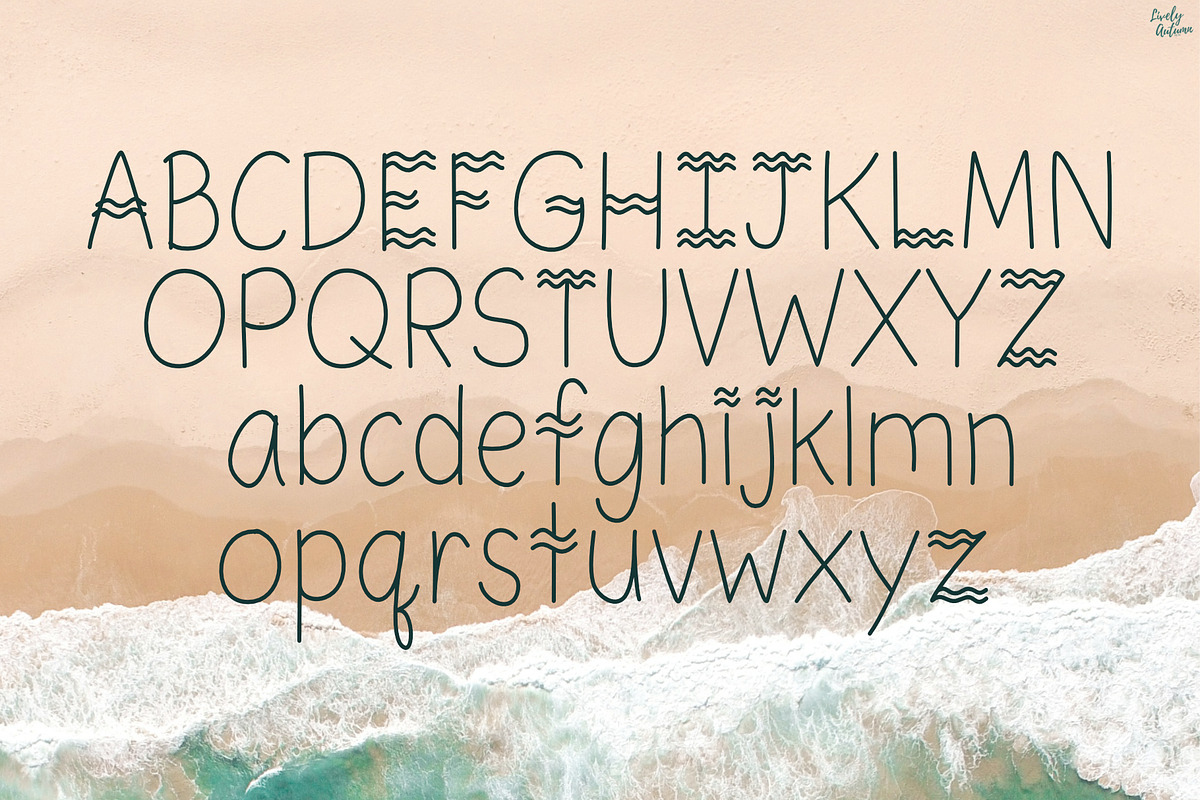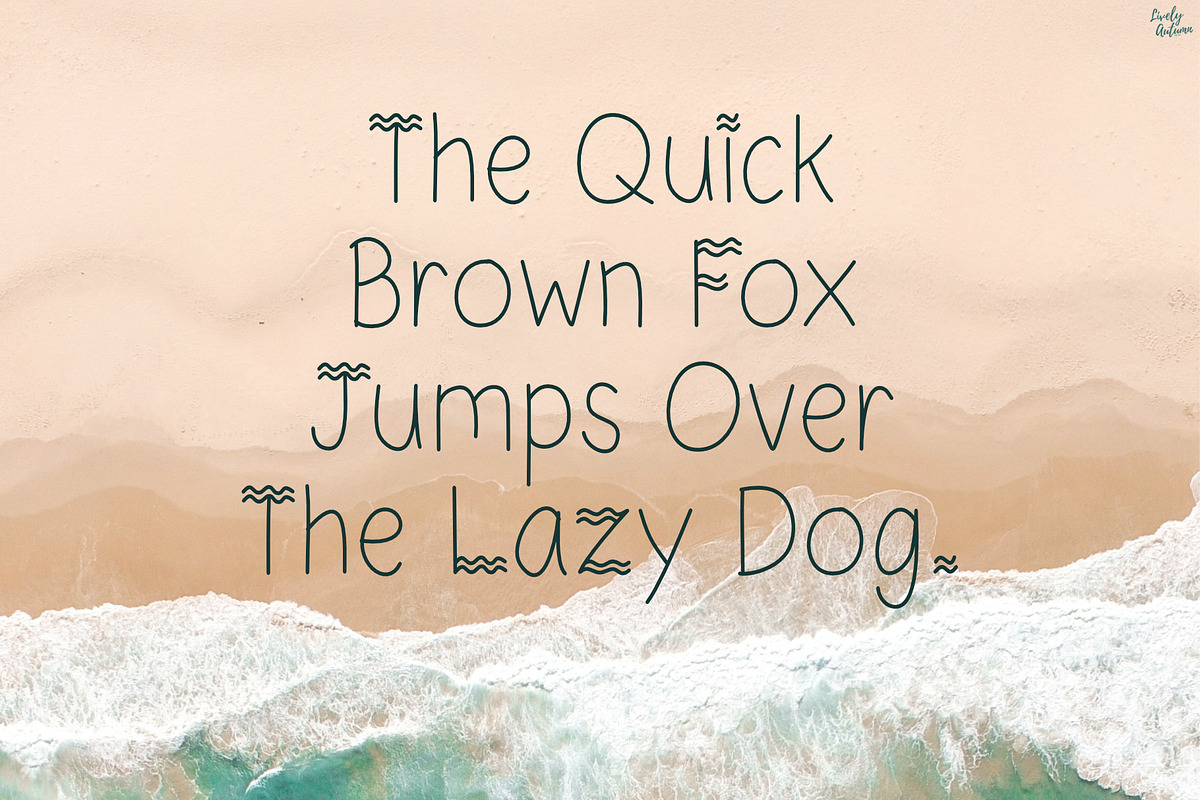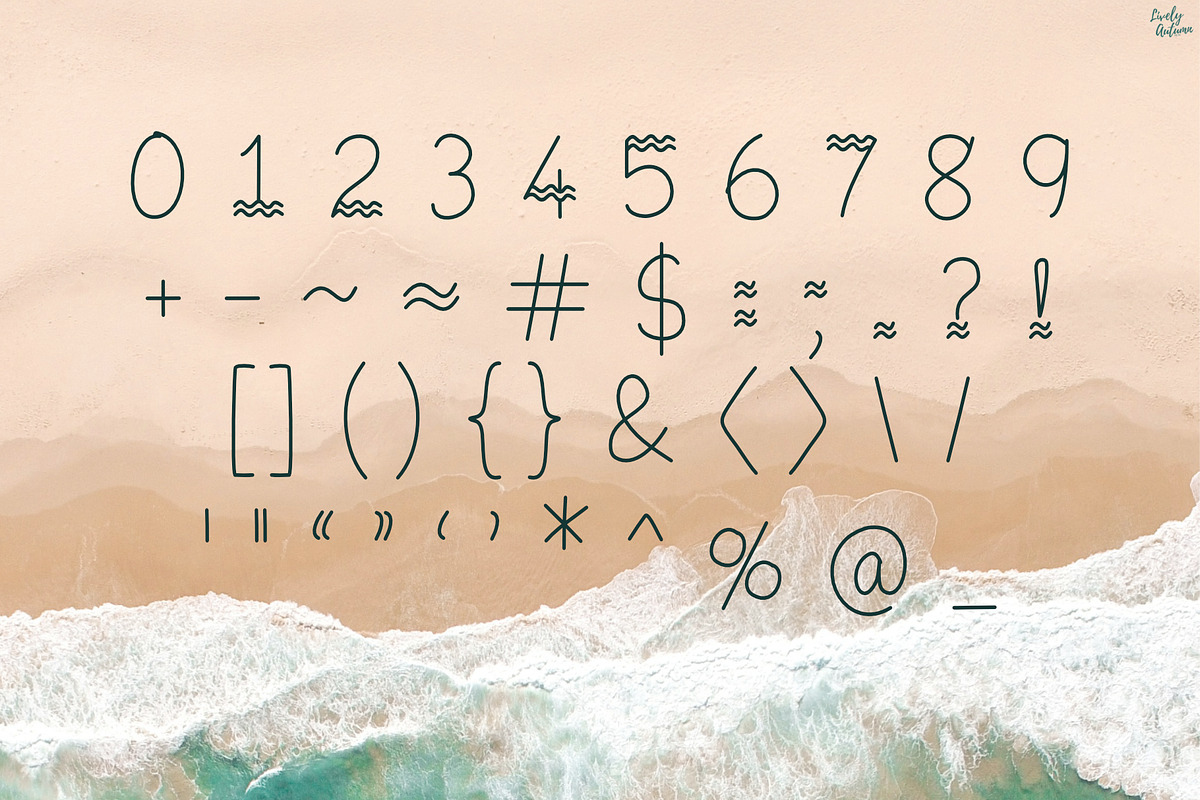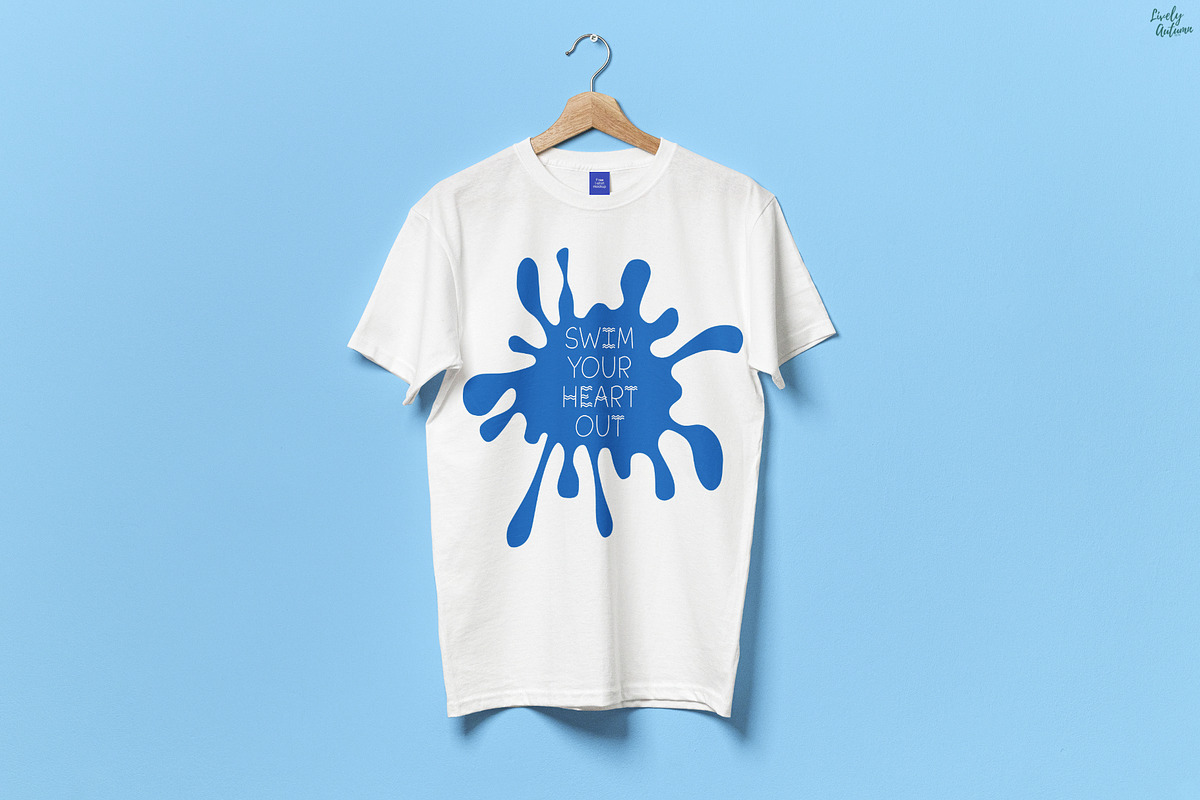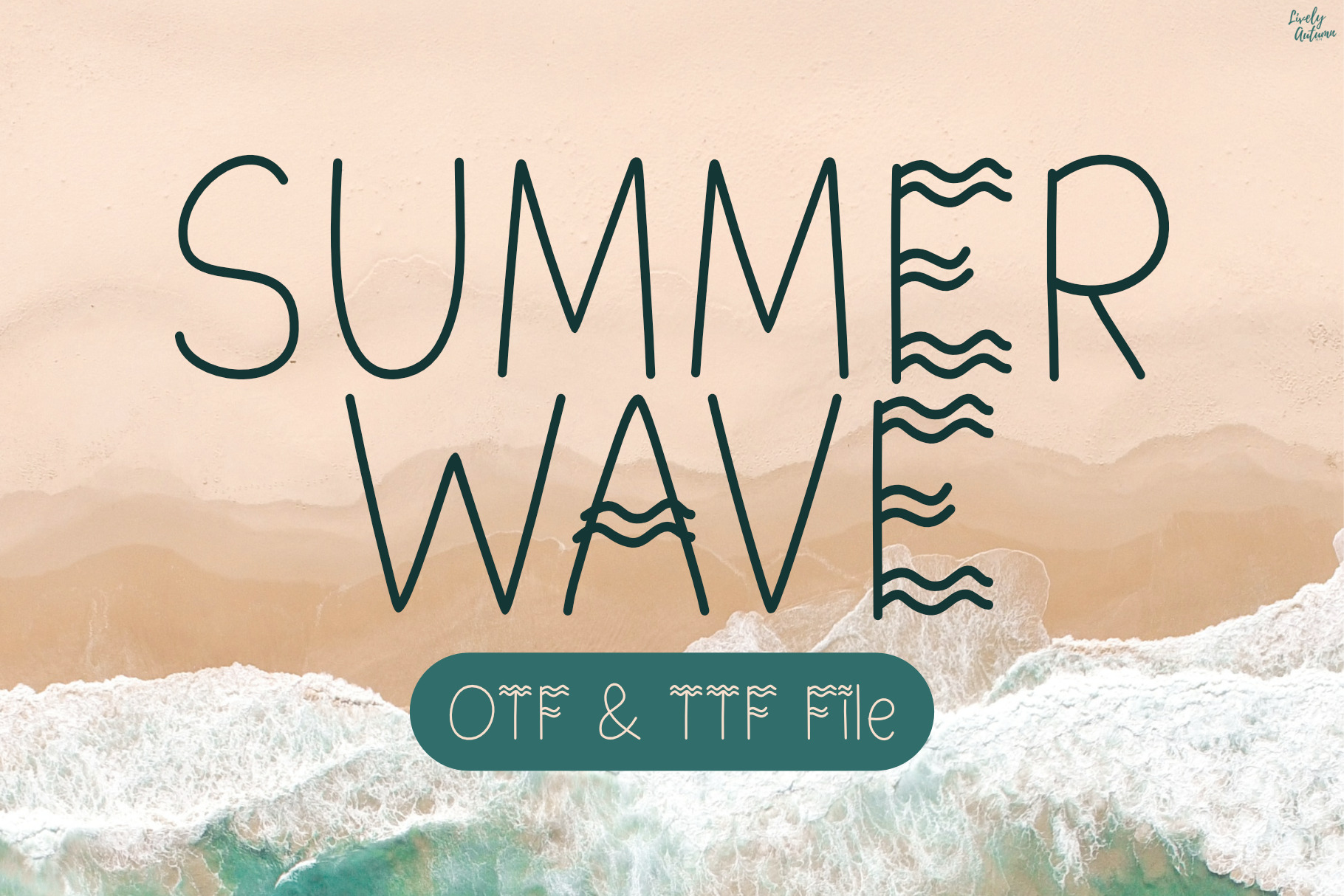
Summer Wave | Handwriting Font
Summer Wave Font is a handwriting font with wave symbols added to some of the letters. Perfect for your personal projects and various projects. From invitations to posters, social media graphics, journals, and much more.